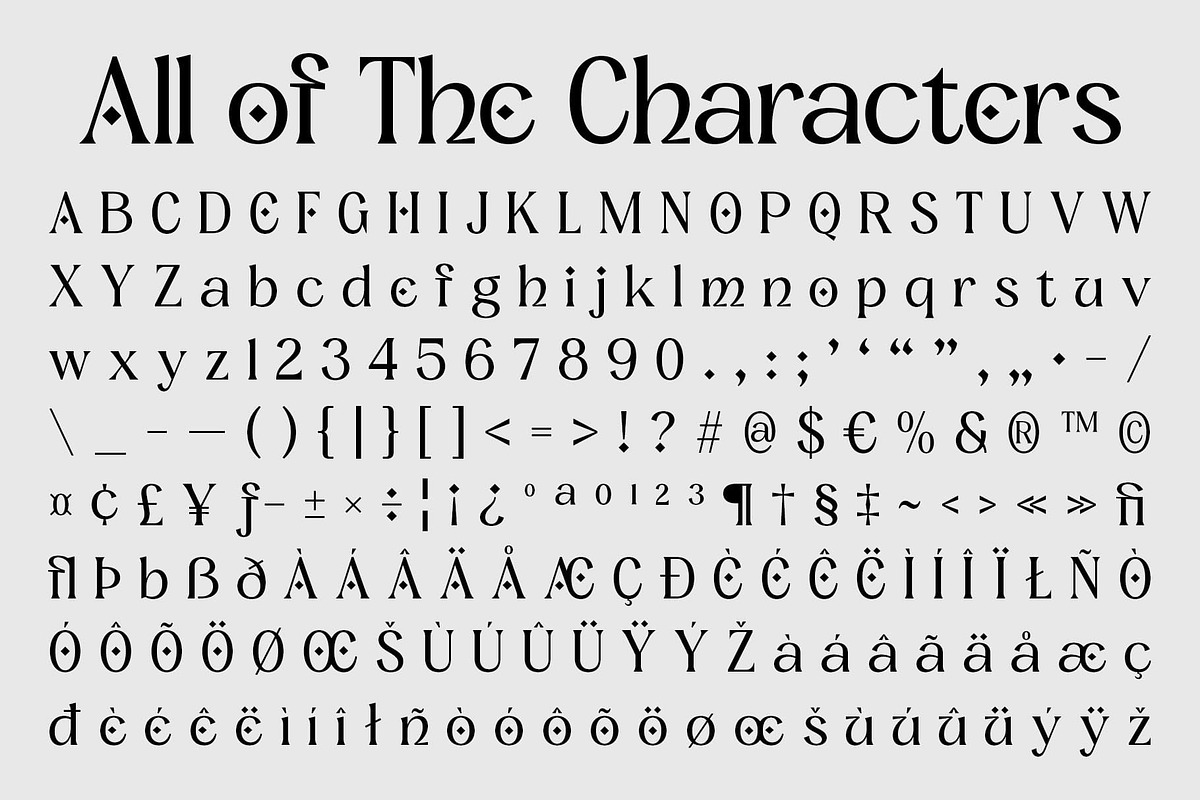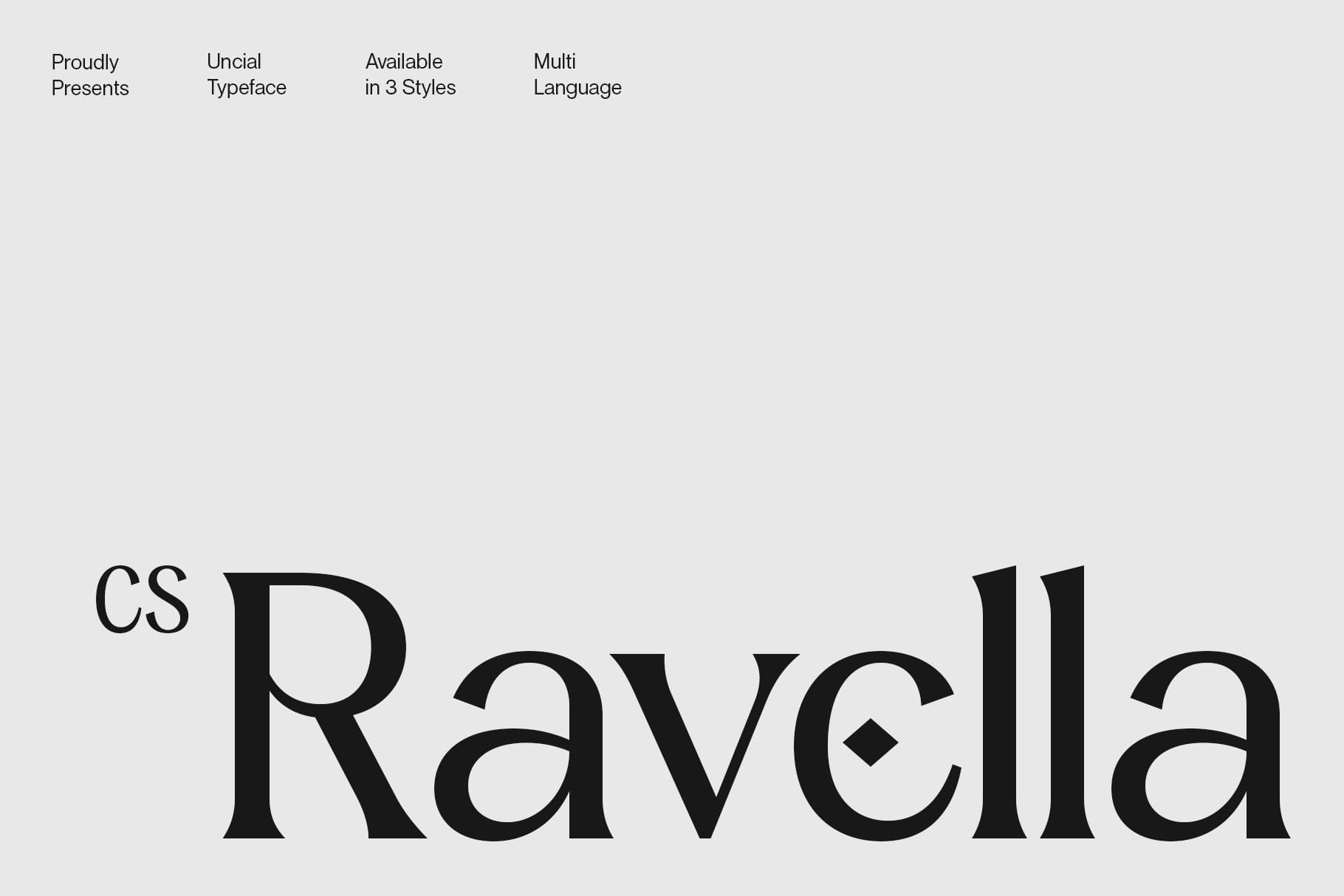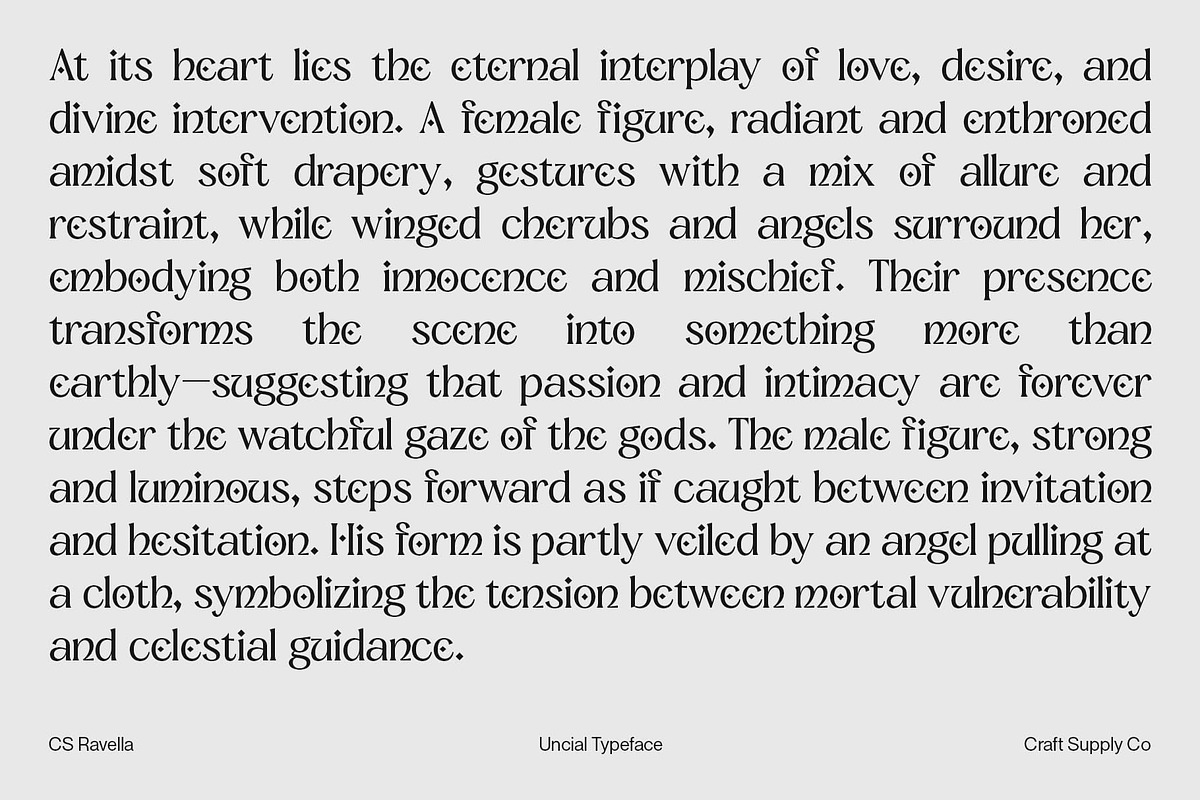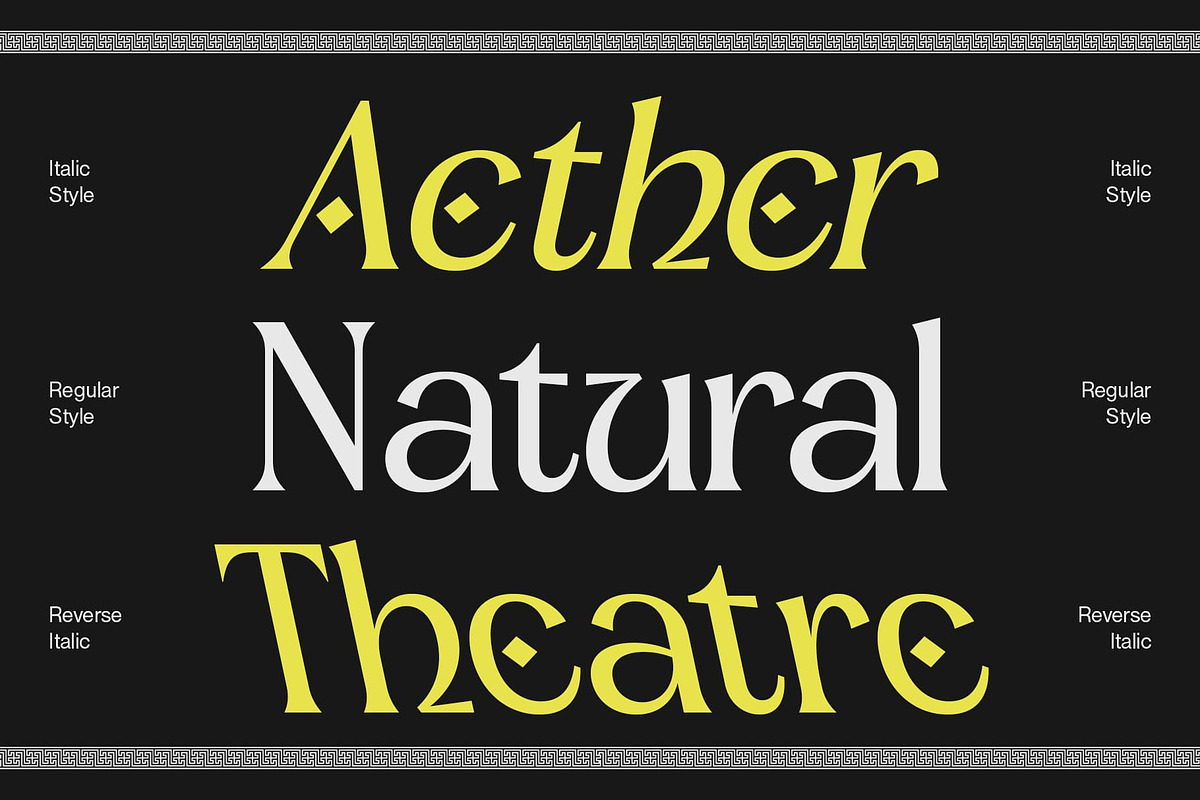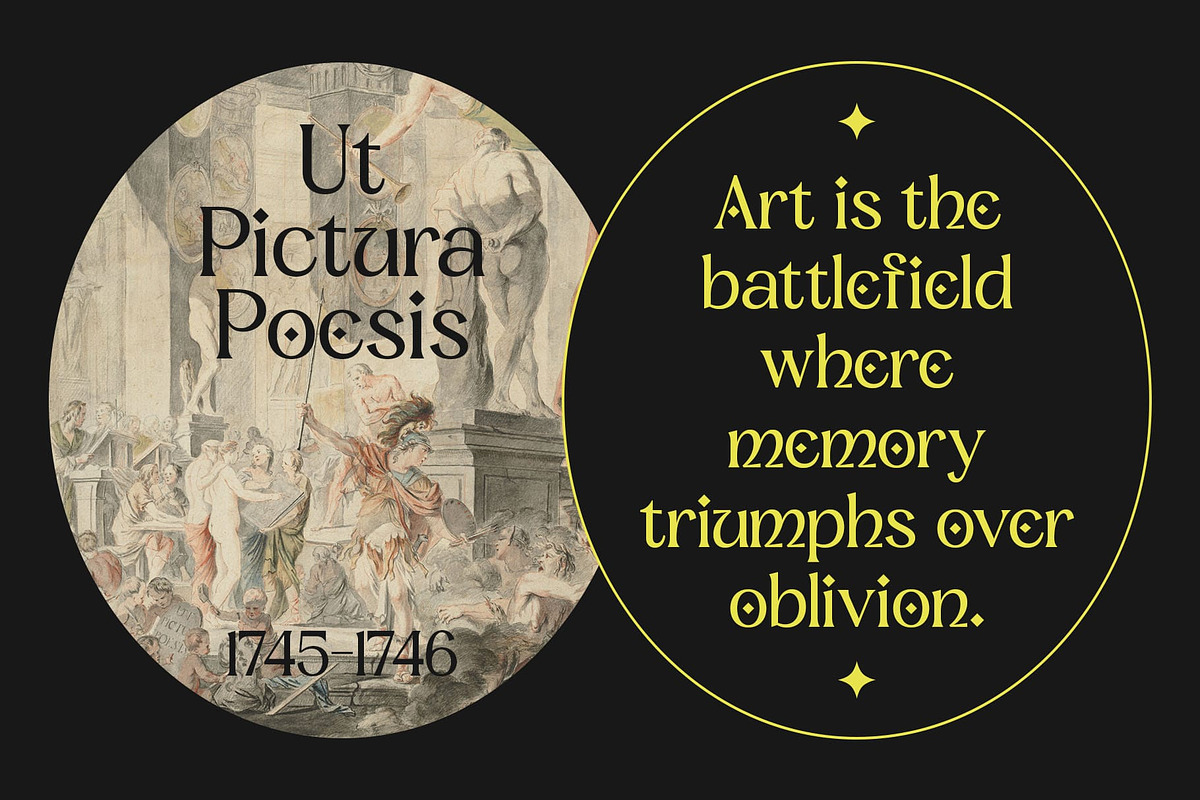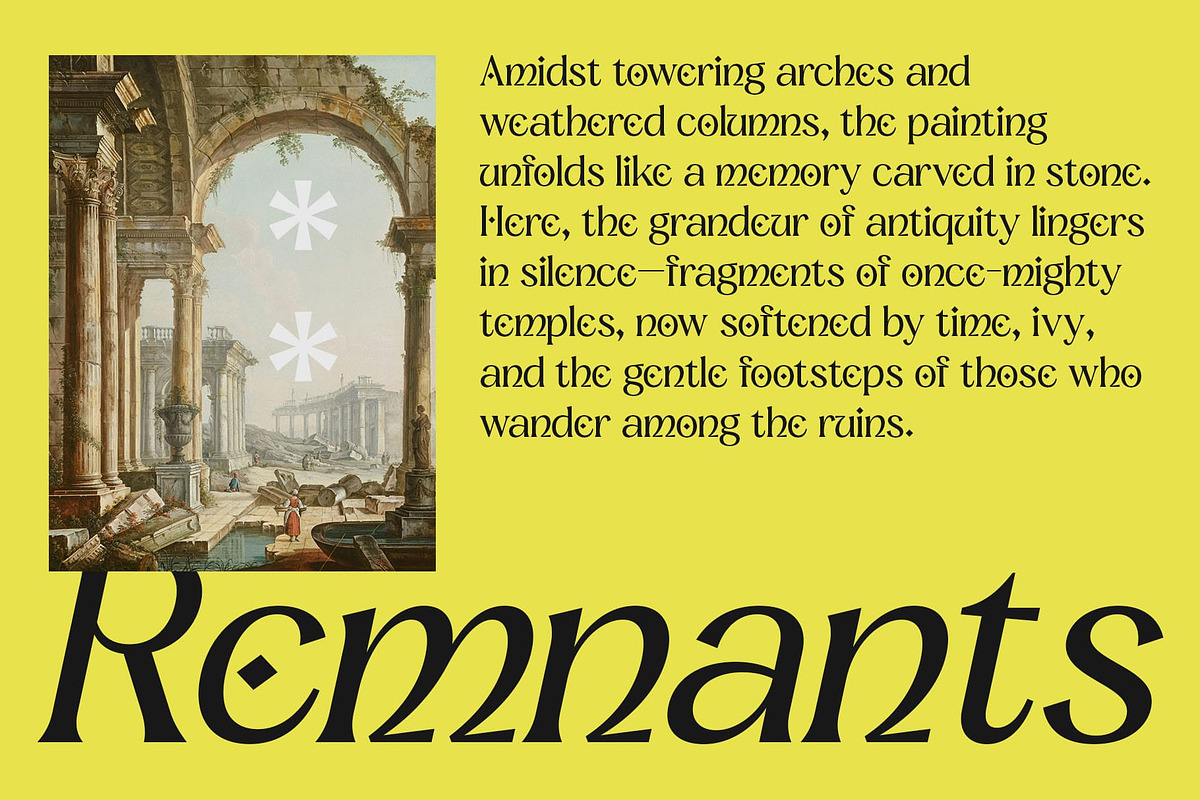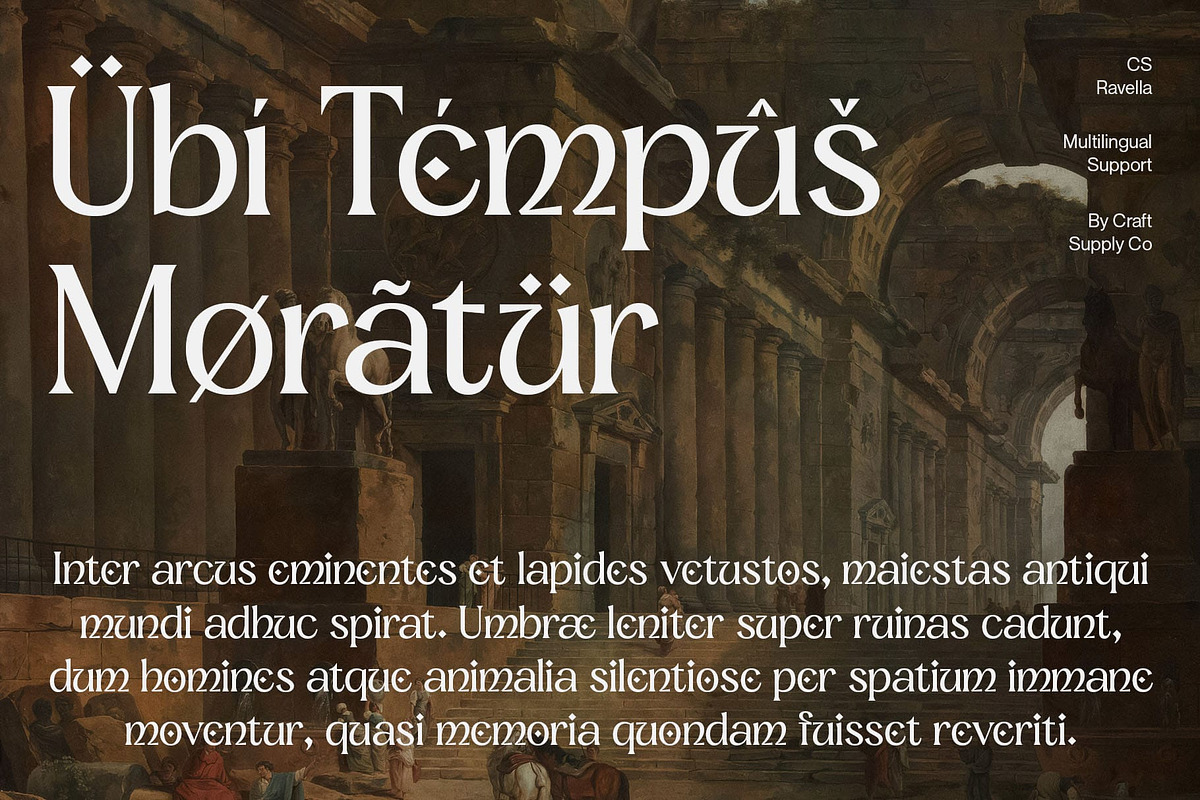
CS Ravella – Uncial Font
CS Ravella – Uncial Font with Historical Elegance
Uncial Font with Historic Letterforms
Inspired by Ancient Manuscripts CS Ravella is a font that channels the timeless artistry of ancient manuscripts. Its historic letterforms reflect the depth and tradition of early writing systems, capturing a sense of heritage while reimagining it for contemporary design. With this strong historical influence, CS Ravella creates a bridge between the past and modern creativity.
Classic Elegance with Unique Character Blending historical structure with refined design, CS Ravella radiates classic elegance. Its uncial forms are both graceful and distinctive, ensuring that typography feels sophisticated yet unique. Every curve and detail contributes to a style that stands out, making it more than just a revival it’s a font with its own identity.
Perfect for Luxury and Cultural Projects CS Ravella thrives in projects where refinement and tradition are key. From luxury branding and packaging to cultural exhibitions and editorial layouts, it brings depth and authenticity. Its historic qualities add gravitas, while its elegant personality ensures a polished and professional result.
A Timeless Design Companion CS Ravella is versatile enough to adapt across both formal and creative contexts. It’s an excellent choice for logos, magazine spreads, invitations, or any design that calls for tradition with a touch of uniqueness. With its blend of classic elegance and historical strength, CS Ravella elevates every project with timeless sophistication.
- CS Ravella Regular
- CS Ravella Italic
- CS Ravella Reverse Italic